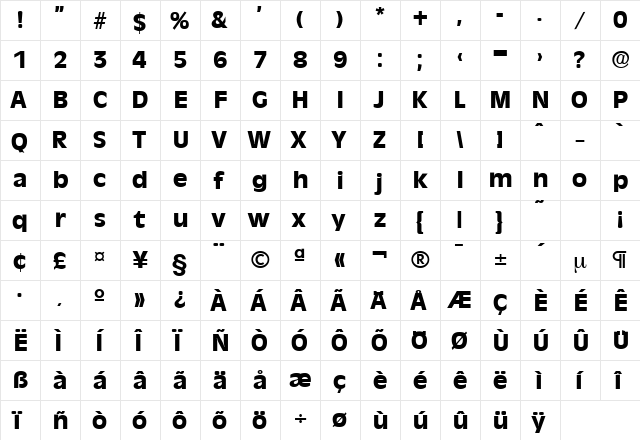
Ravenna-Serial-ExtraBold Regular
Design Context for Ravenna-Serial-ExtraBold Typeface
Ravenna-Serial-ExtraBold offers clean, dependable letterforms without strong stylistic allegiance, making it a practical choice for designers who need flexibility. The heavy weight commands attention and anchors typographic hierarchies.